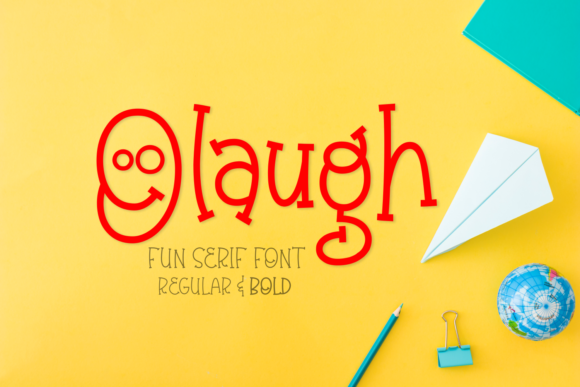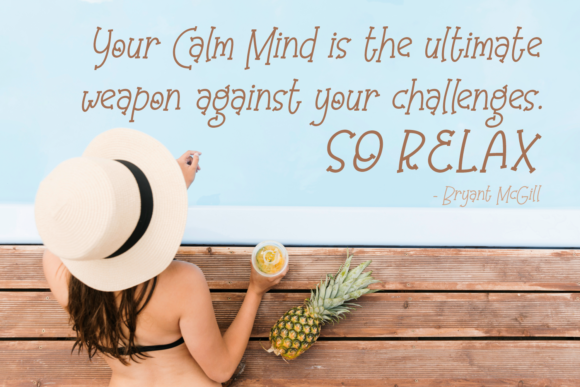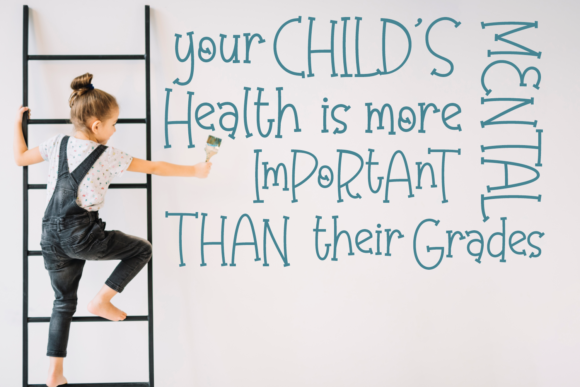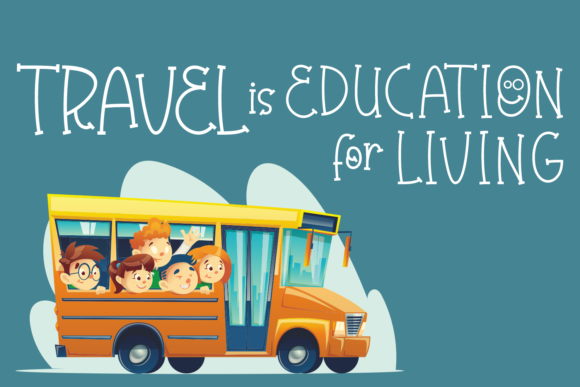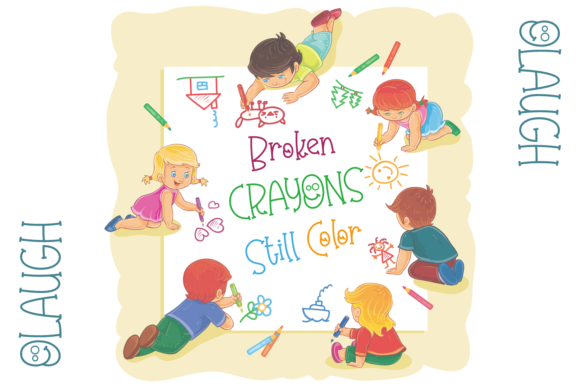
Olaugh Family Font
About Olaugh Family Font
Olaugh is hilarious and quirky handwritten font that celebrates all things weird. It’s the ideal font for any kids-themed craft!